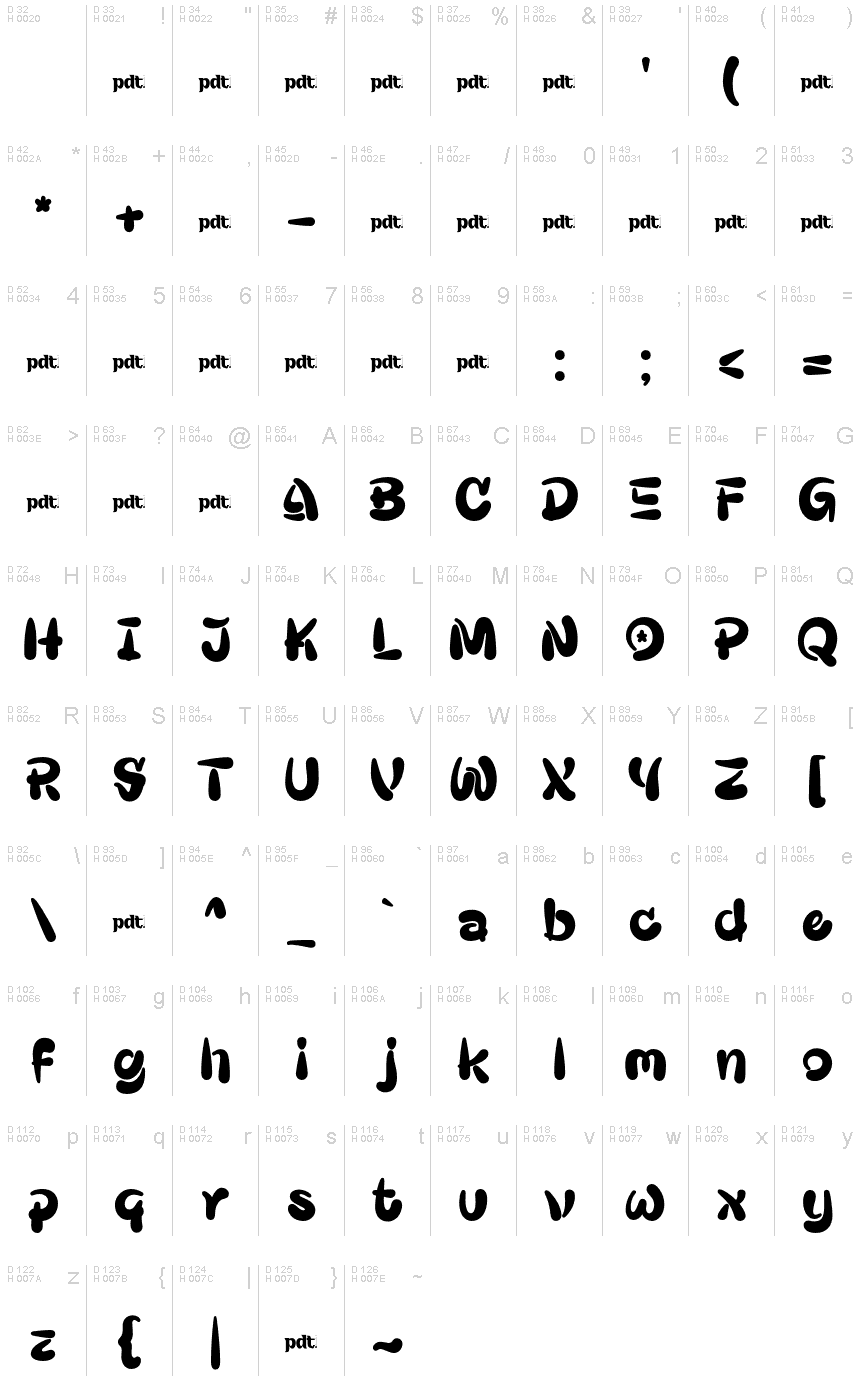
MAENGAMEtrial-Regular
Maengame, crafted by the innovative minds at Twinletter, is a bold display font that marries the whimsicality of cartoon aesthetics with the heft of a solid typeface. This font stands out with its playful bubble letter design, infusing an element of fun into every word it forms. It's not merely typography; Maengame is a statement of creativity and strength, designed to leap off the page and captivate audiences.
Perfect for dynamic branding, eye-popping advertising, or engaging game interfaces, Maengame's chunky characters are engineered to draw attention and evoke a sense of excitement. Its cartoon style exudes vibrancy and energy, making it ideal for any creative endeavor that aims to inspire joy or convey boldness.
Whether you're crafting titles for an animated feature or designing promotional materials that demand impact, Maengame's unique character ensures your project will leave a lasting impression. Embrace the power and playfulness of Maengame Font Display – your key to unlocking designs filled with fun and confidence.
Perfect for dynamic branding, eye-popping advertising, or engaging game interfaces, Maengame's chunky characters are engineered to draw attention and evoke a sense of excitement. Its cartoon style exudes vibrancy and energy, making it ideal for any creative endeavor that aims to inspire joy or convey boldness.
Whether you're crafting titles for an animated feature or designing promotional materials that demand impact, Maengame's unique character ensures your project will leave a lasting impression. Embrace the power and playfulness of Maengame Font Display – your key to unlocking designs filled with fun and confidence.